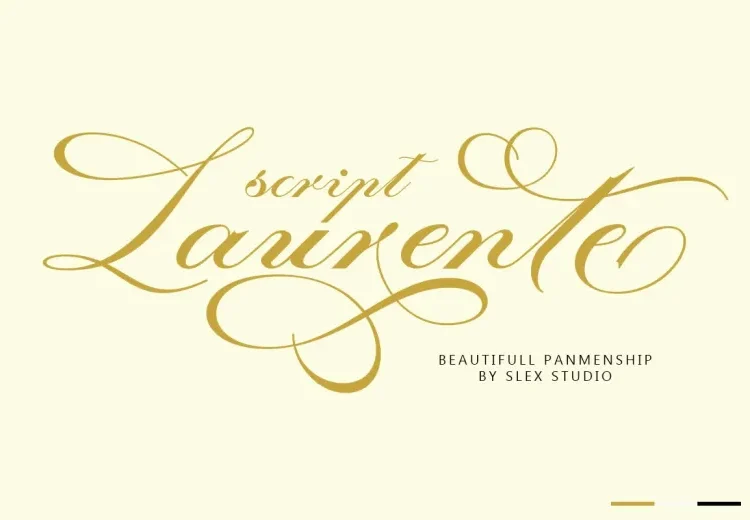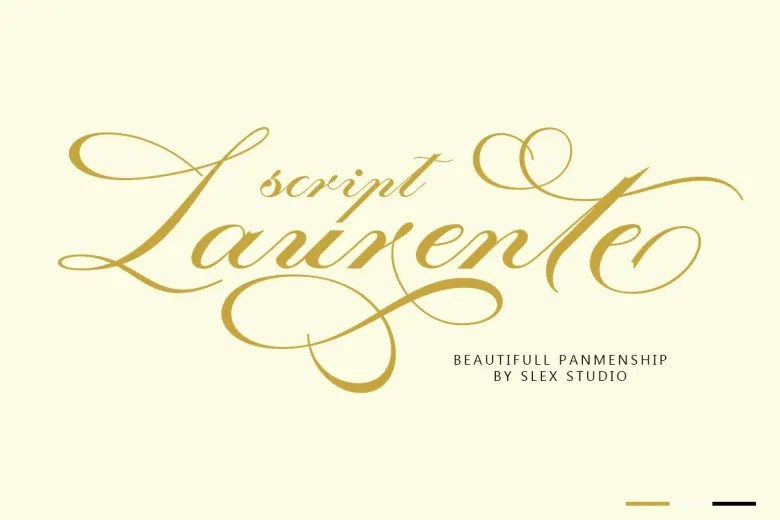
Laurente Script Font
Laurente Script is a stylish calligraphic font that embodies elegance and sophistication through its graceful curves, crisp lines, and refined strokes. This font is not just beautiful in its basic form but also versatile, offering an array of Swash and Decorative alternatives, including local styles, to elevate the aesthetics and class of your designs.
With a rich set of 593 glyphs, Laurente Script provides numerous decorative options and ligatures, allowing for a truly personalized and professional touch in your work. To fully utilize these features, it’s recommended to use professional software that supports various OpenType functionalities, ensuring that you can explore the font’s full potential.